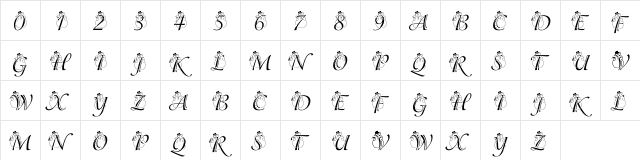
Design Context for pf_snowman_adorable Typeface
pf_snowman_adorable is a composed and adaptable typeface that performs quietly and consistently across a wide range of design contexts.